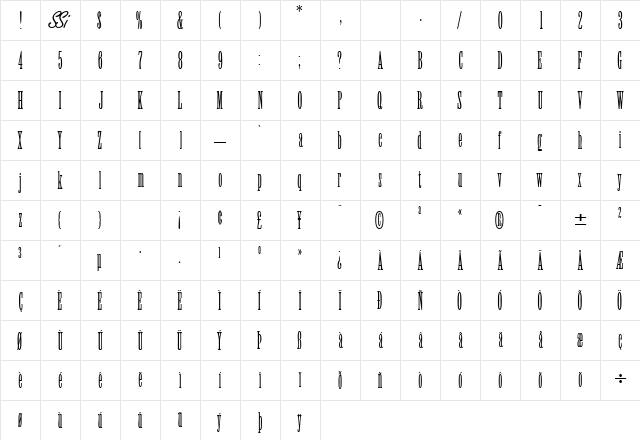
ElvenSSK Light
Design Context for ElvenSSK Typeface
ElvenSSK takes a measured approach to typography — its balanced proportions and neutral character make it a reliable workhorse for both digital and print work. Its slender proportions lend an understated elegance to any composition.